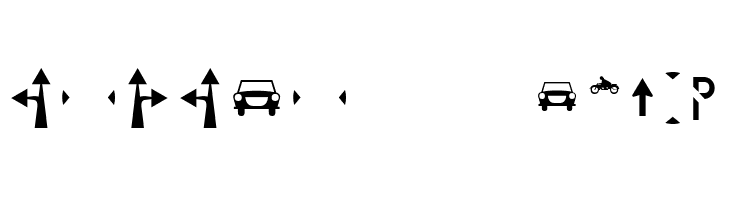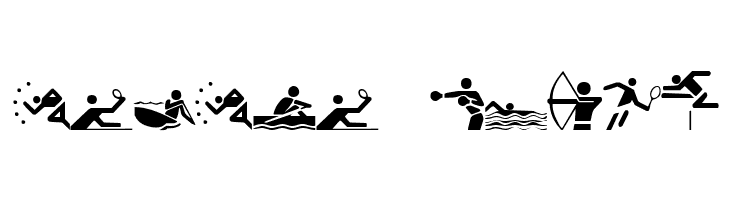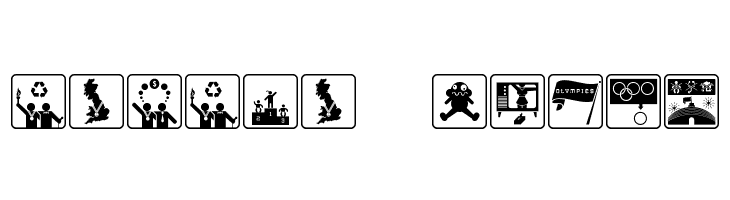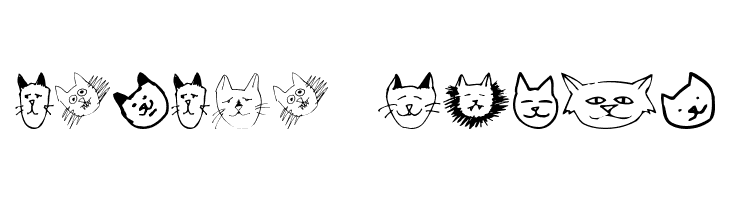
Illustrations of WWI planes and soldiers, not a font.
A comprehensive set of bold, clear transportation and road signage icons.
A decorative font with pictograms of Olympic sports and symbols.
Hand-drawn font with unique cat face illustrations for each character.
A tactile Braille font for visually impaired readers.
A whimsical, character-based decorative font with illustrated glyphs.
Braille is a tactile writing system for the visually impaired, using raised dots for characters.
Whimsical cartoon character font with playful, expressive figures.
A decorative font with pictographic symbols inspired by Aboriginal art.
A decorative font featuring Aboriginal-inspired pictograms.
A decorative, teddy bear-themed pictorial font.
Cartoon dog illustrations replace letters and numbers in a decorative, playful style.
A modern, bold set of chess-inspired symbols with clean lines and geometric shapes.
A playful, cartoon-style font with children holding letter blocks.